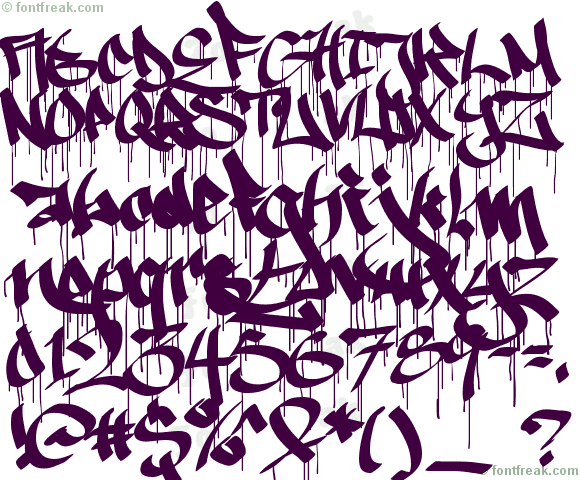
Ruthless Wreckin ONE
Ruthless Drippin ONE
About Ruthless Wreckin ONE
Ruthless Wreckin ONE, designed by Mans Greback, is a striking display font that embodies a bold and rebellious spirit. This font falls into the decorative category, featuring an expressive style that combines sharp, angular strokes with a dynamic flow. The heavy stroke weight gives it a powerful presence, while the varying contrast adds depth and interest. The spacing is thoughtfully designed to enhance readability without sacrificing the artistic flair, making it perfect for eye-catching headlines and graphics.
This font is ideal for a variety of creative projects. It works wonderfully for movie posters, where its edgy design can evoke excitement and intrigue. Additionally, Ruthless Wreckin ONE is perfect for music event flyers, capturing the energy and vibrancy of live performances. Small business owners might also find it suitable for branding, especially in industries like streetwear or urban art. Moreover, it can be a great choice for social media graphics, helping content creators to stand out in a crowded digital landscape.
The target audience for this font includes graphic designers and artists looking to make a statement, as well as small business owners aiming to convey a unique brand identity. Its captivating style appeals to those who appreciate font design that pushes boundaries and challenges conventions.
What sets the Ruthless Wreckin ONE font apart is its ability to convey an attitude and a sense of individuality. With its distinctive visual elements and strong personality, it invites creativity and inspires bold design choices. Don't miss the opportunity to elevate your projects with this unique typeface; the Ruthless Wreckin ONE font free download is available for those ready to unleash their creativity.